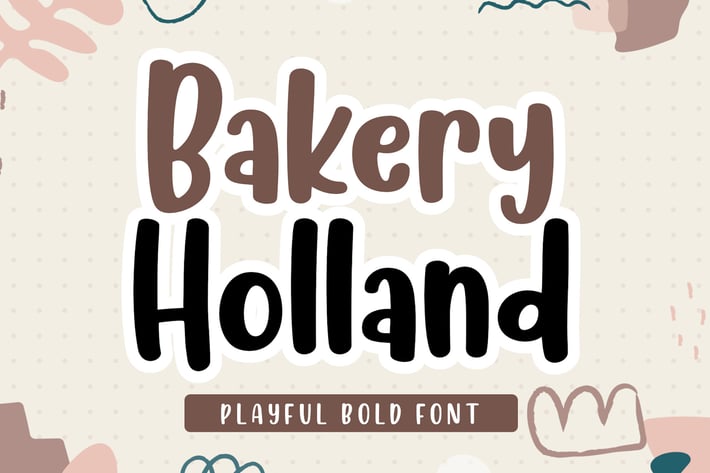
Bakery Holland Display Font
Bakery Holland is a cute display font with a bubbly personality and handcrafted charm. Its rounded shapes and sweet aesthetics make it perfect for bakery logos, dessert packaging, kids’ books, and anything that needs a touch of joy and friendliness.
Designed to be both charming and highly readable, it brings a light-hearted tone to any creative project.
- Cute rounded letterforms with handcrafted feel
- Ideal for bakery, kids, and playful branding
- Friendly and approachable design
- Stands out in both headlines and logos
Add a sweet and joyful touch to your visuals with Bakery Holland.